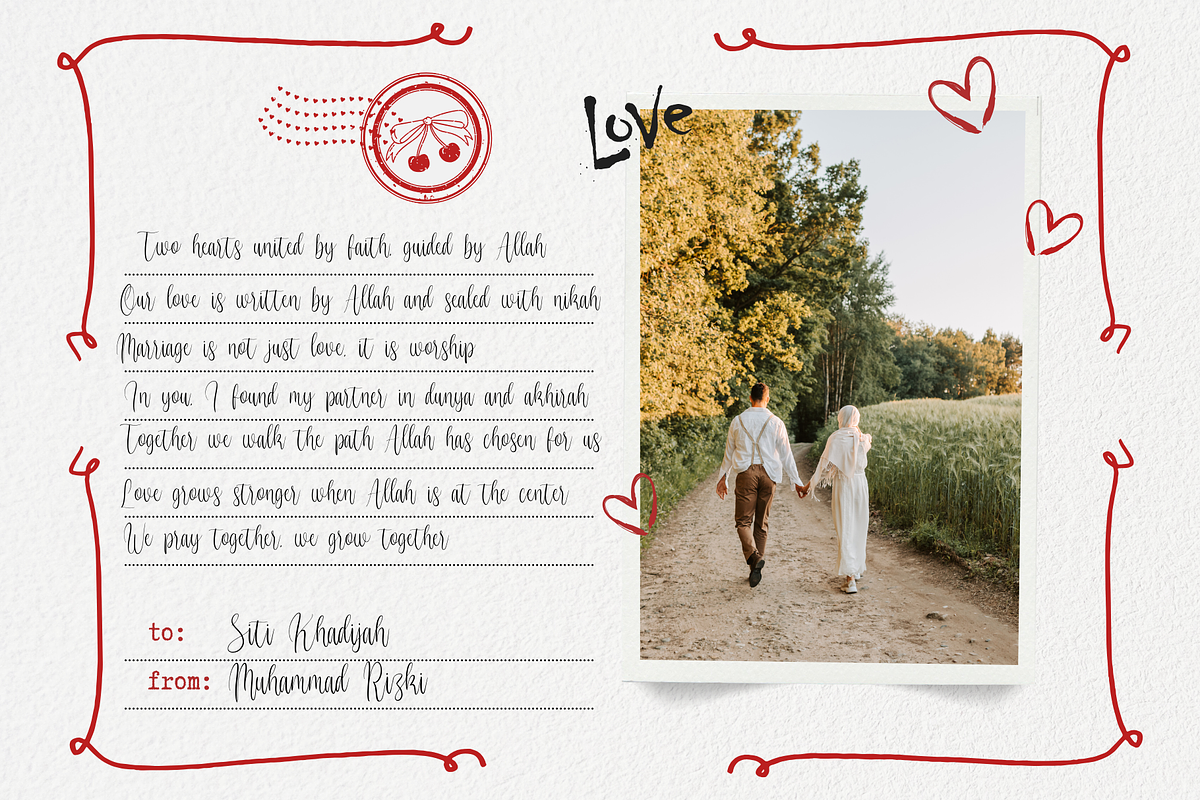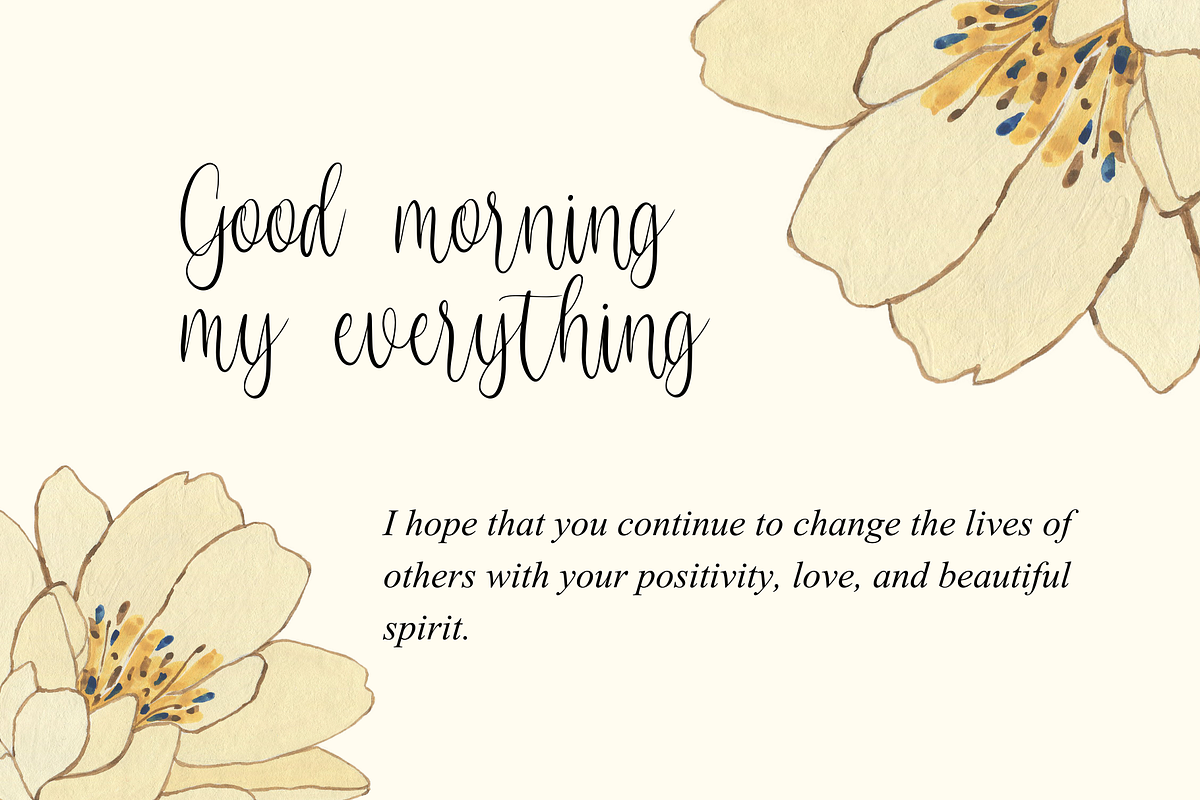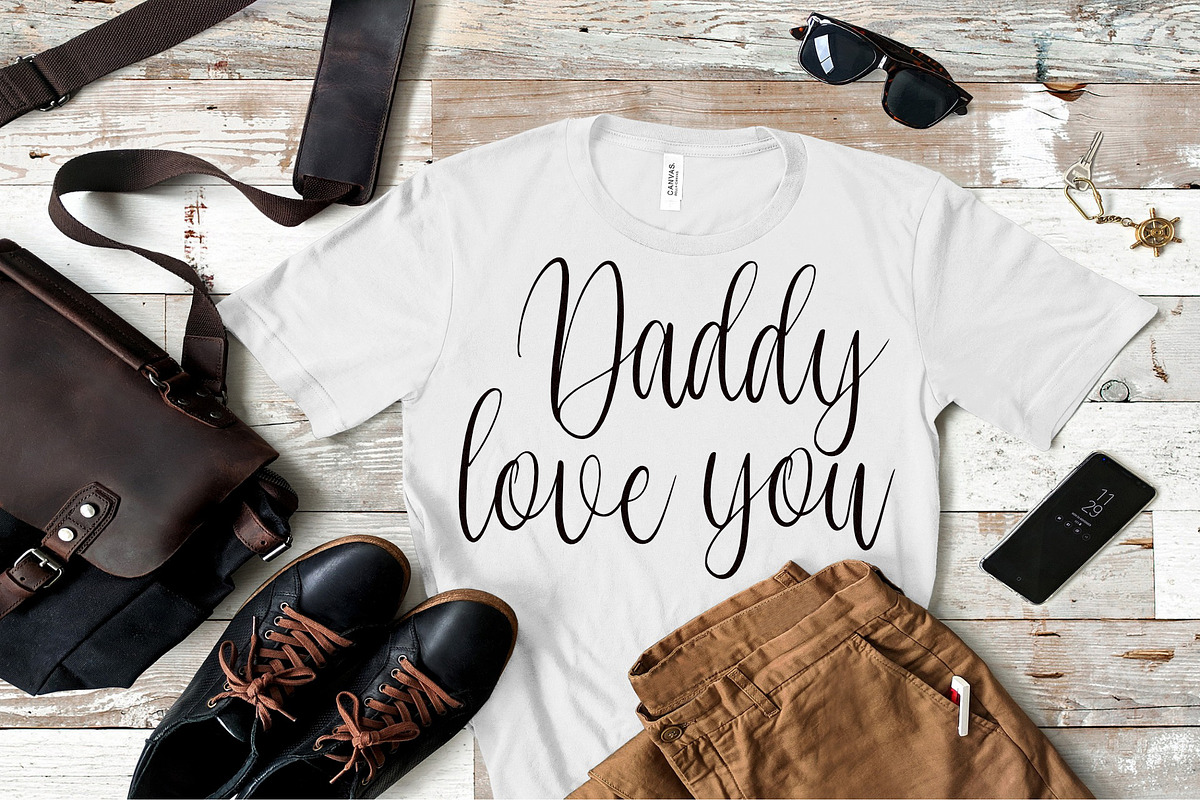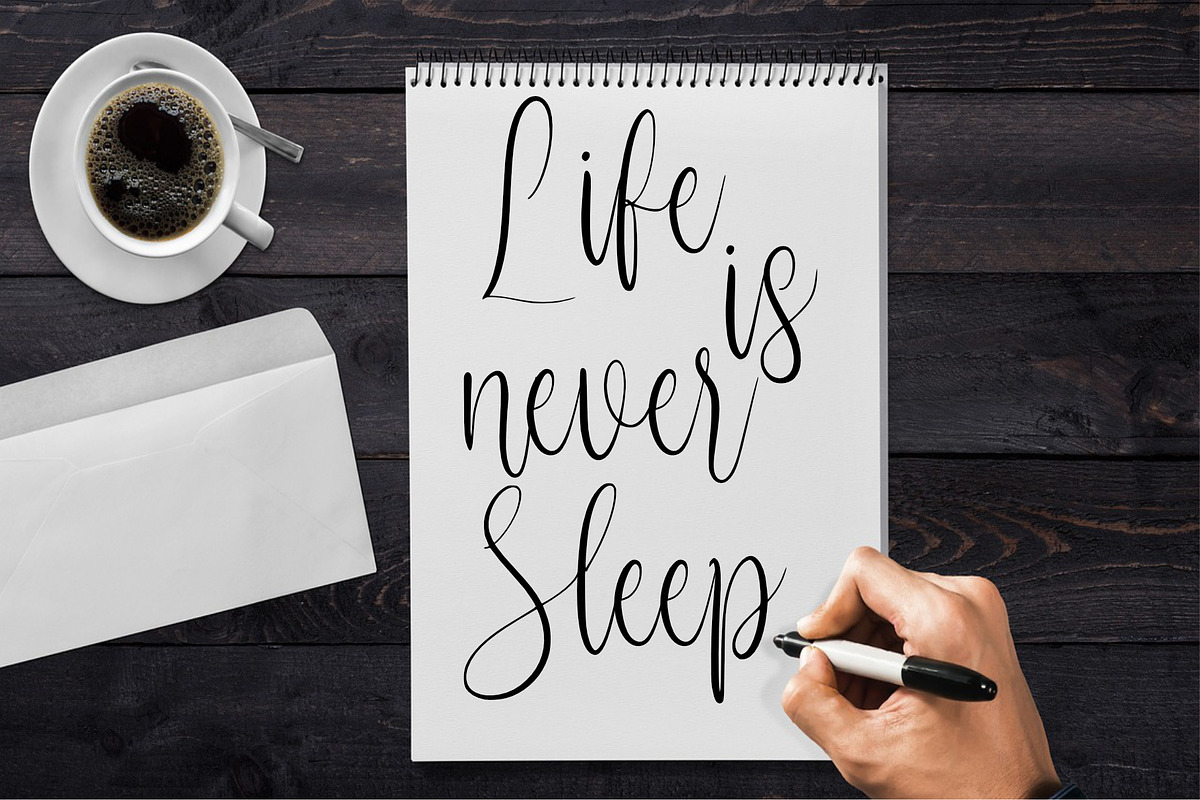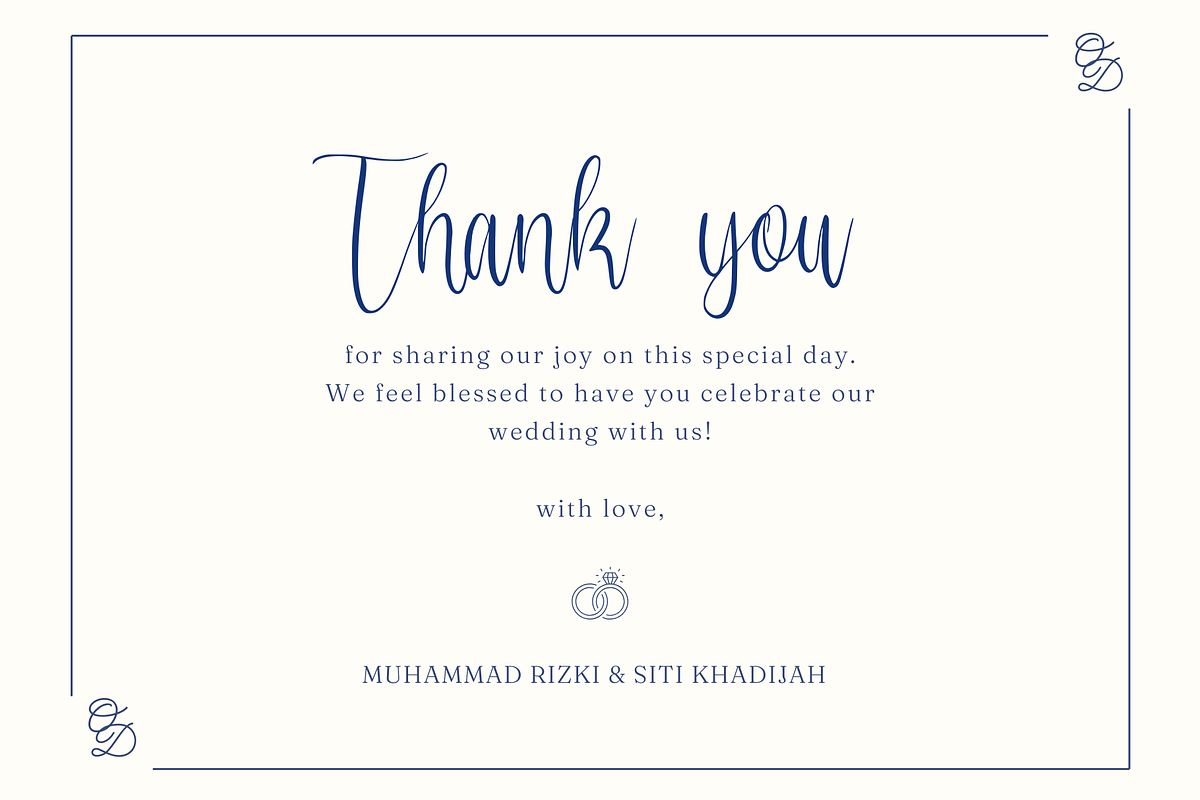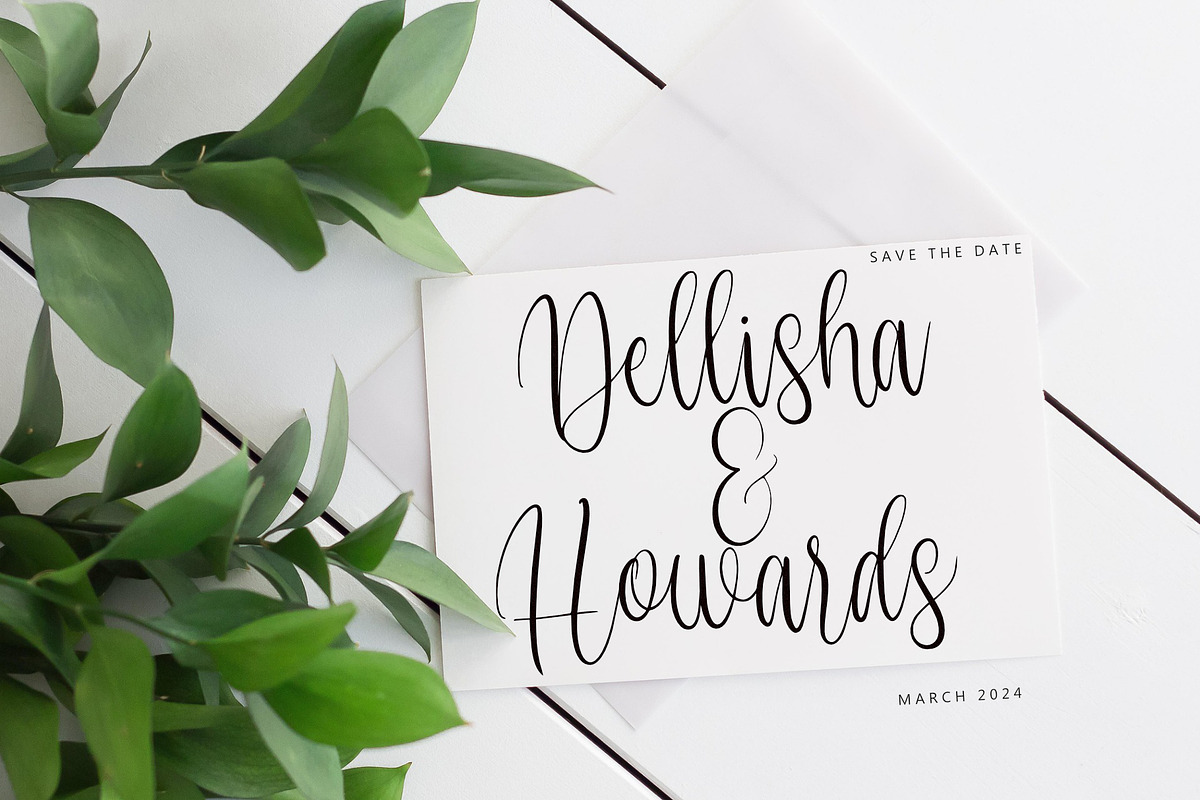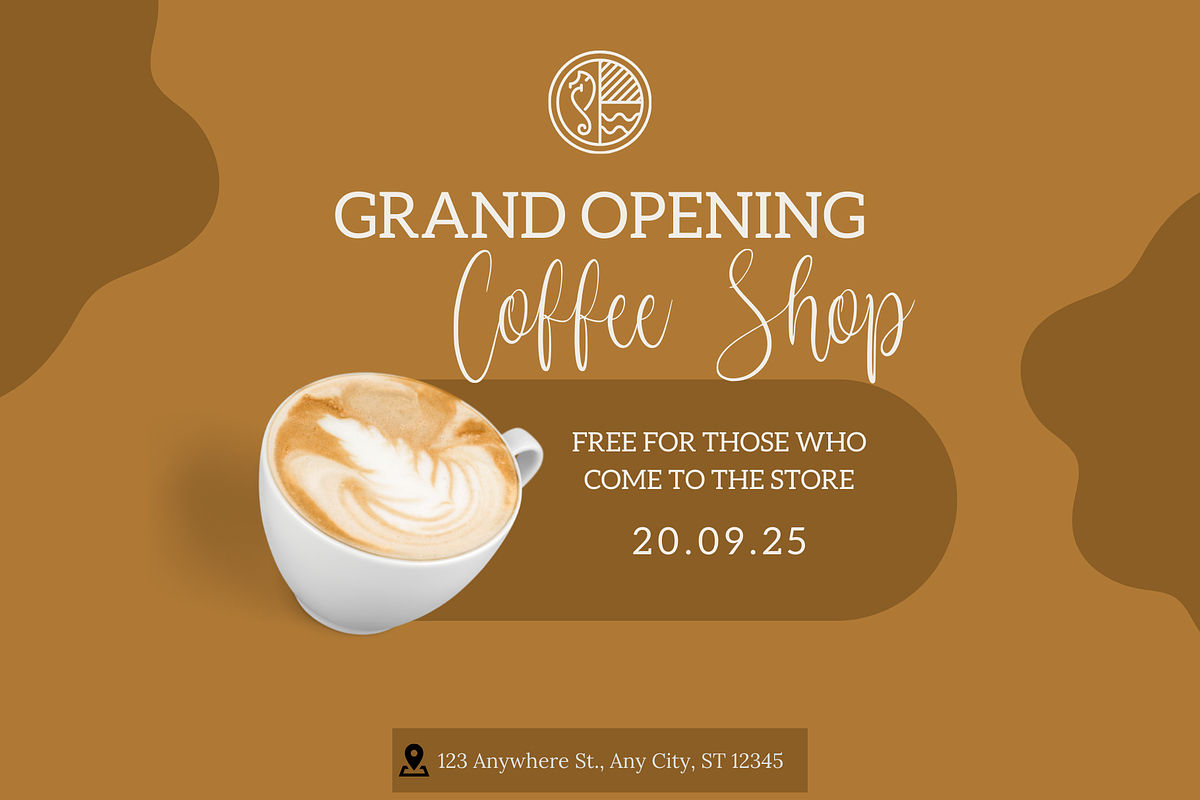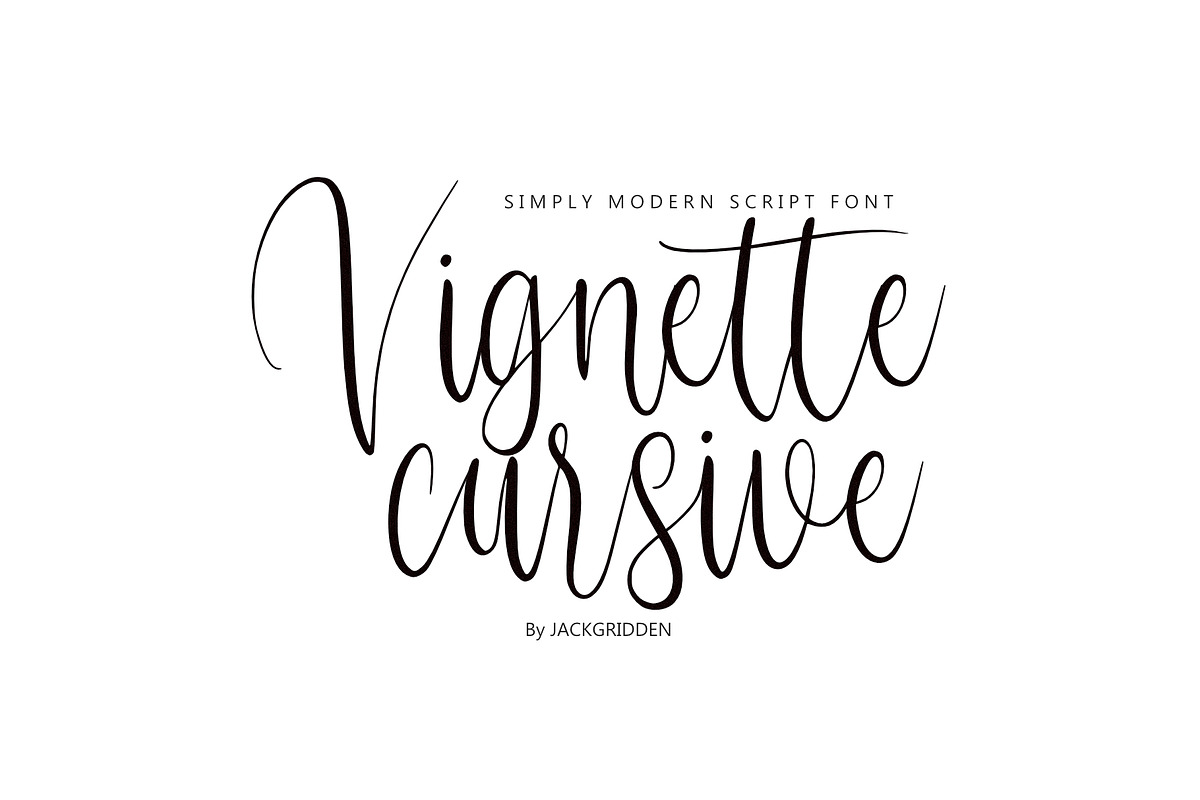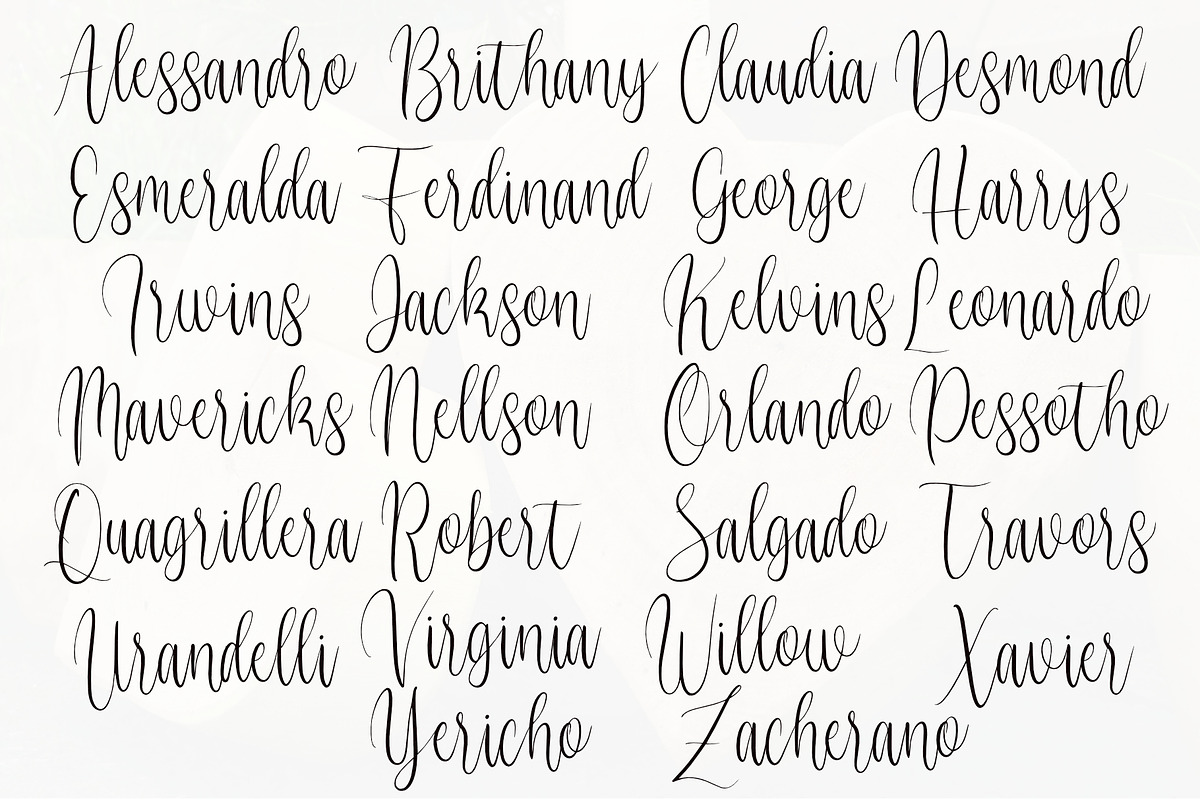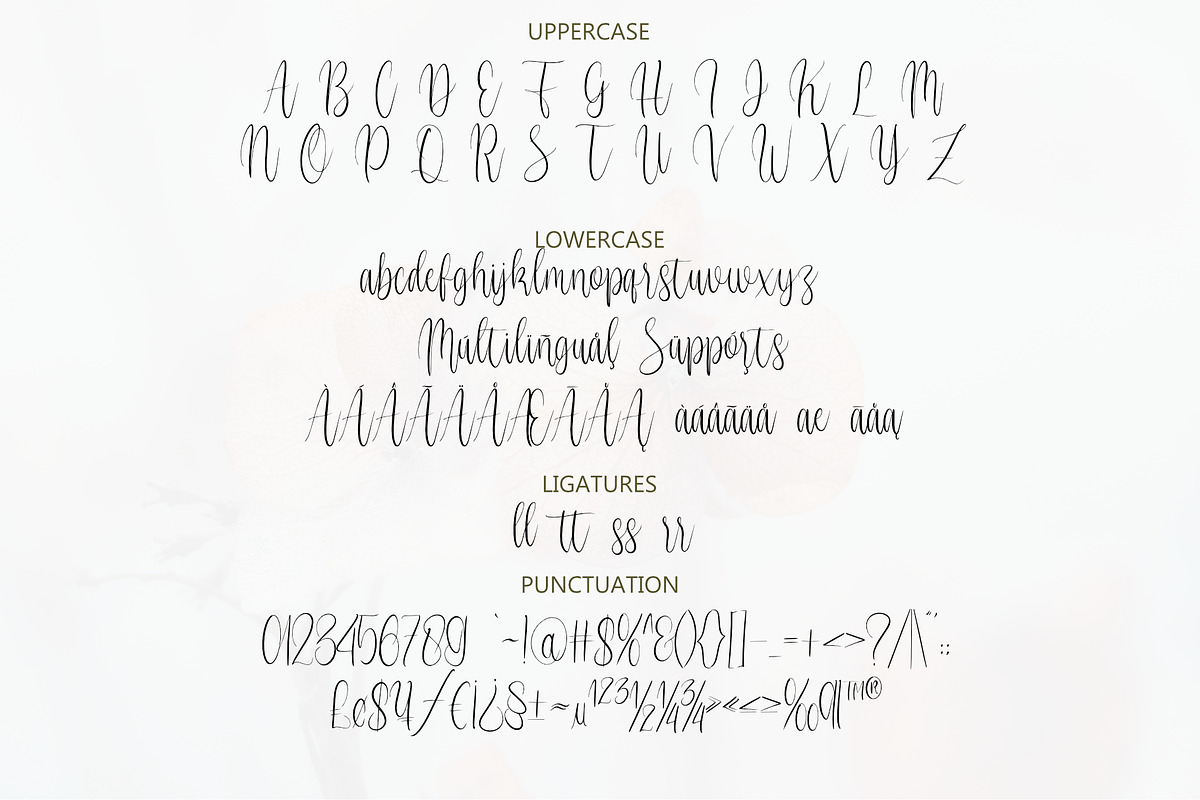
Vignette Cursive Font
The “VignetteCursive” font name suggest a style that evokes a sense of delicacy and elegance, reminiscent of classic handwritten scripts with subtle flourishes and curves. It represents a font that is graceful, refined, and ideal for conveying a touch of sophistication in various design projects such as invitations, branding materials, or editorial layouts.